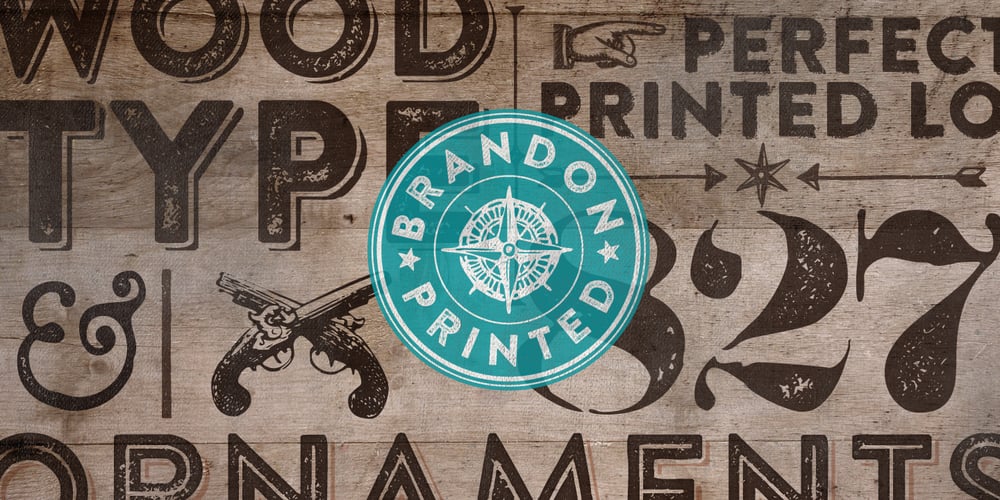
Brandon Printed Font Family was designed by Hannes von Döhren and published by HVD Fonts. Brandon Printed contains 8 styles and family package options. Brandon Printed is based on the famous Brandon Grotesque typeface. It has an eroded, printed look with variations of every letter by using different styles. With several different styles like a shadowed version, an inline version and a double printed version you can create a lot of lovely combinations. The Brandon Printed package also contains a set with 95 Extras like arrows, catchwords, stars, emblems numbers & lines. Brandon Printed has a high level of detail, so it may process more slowly in some applications.